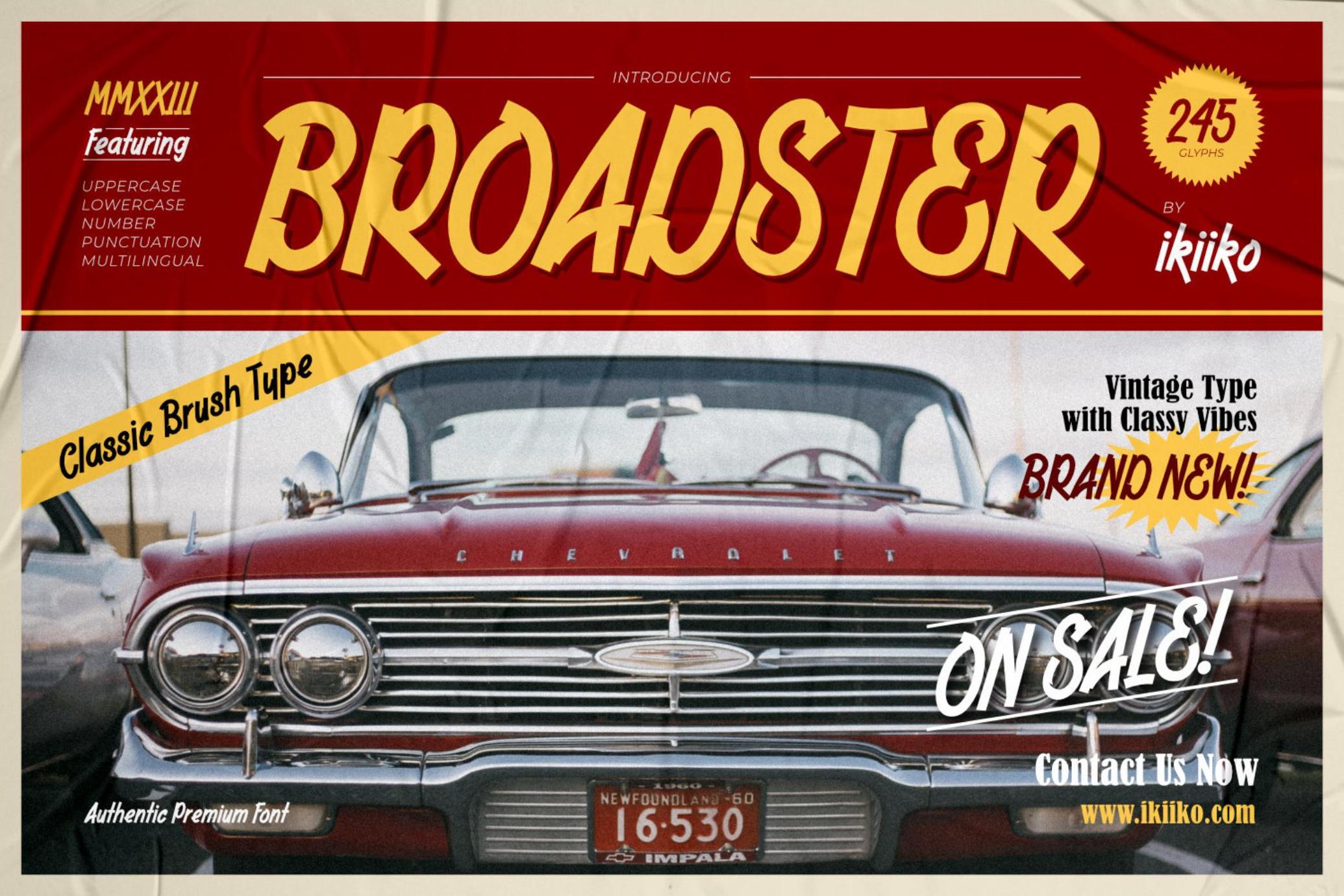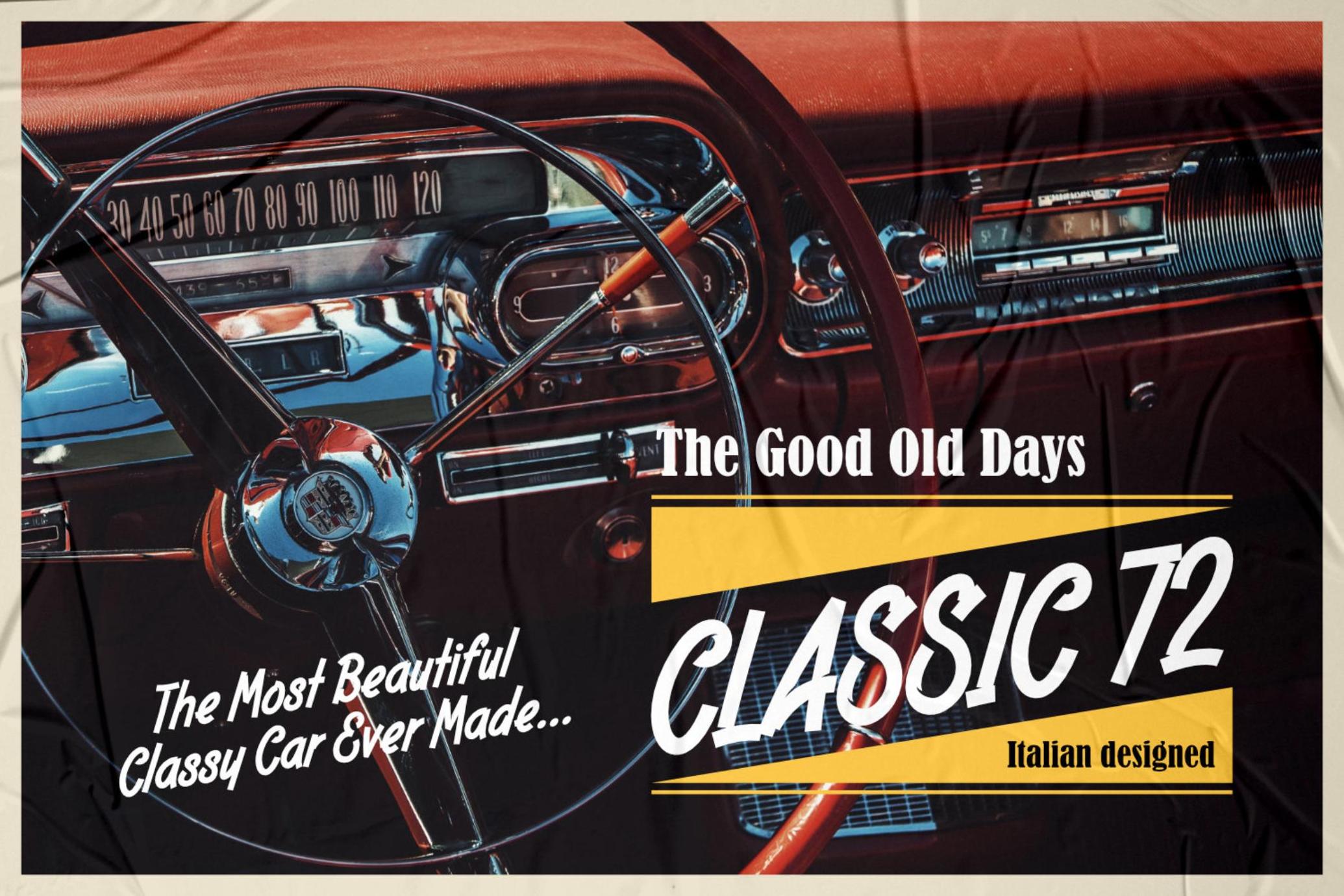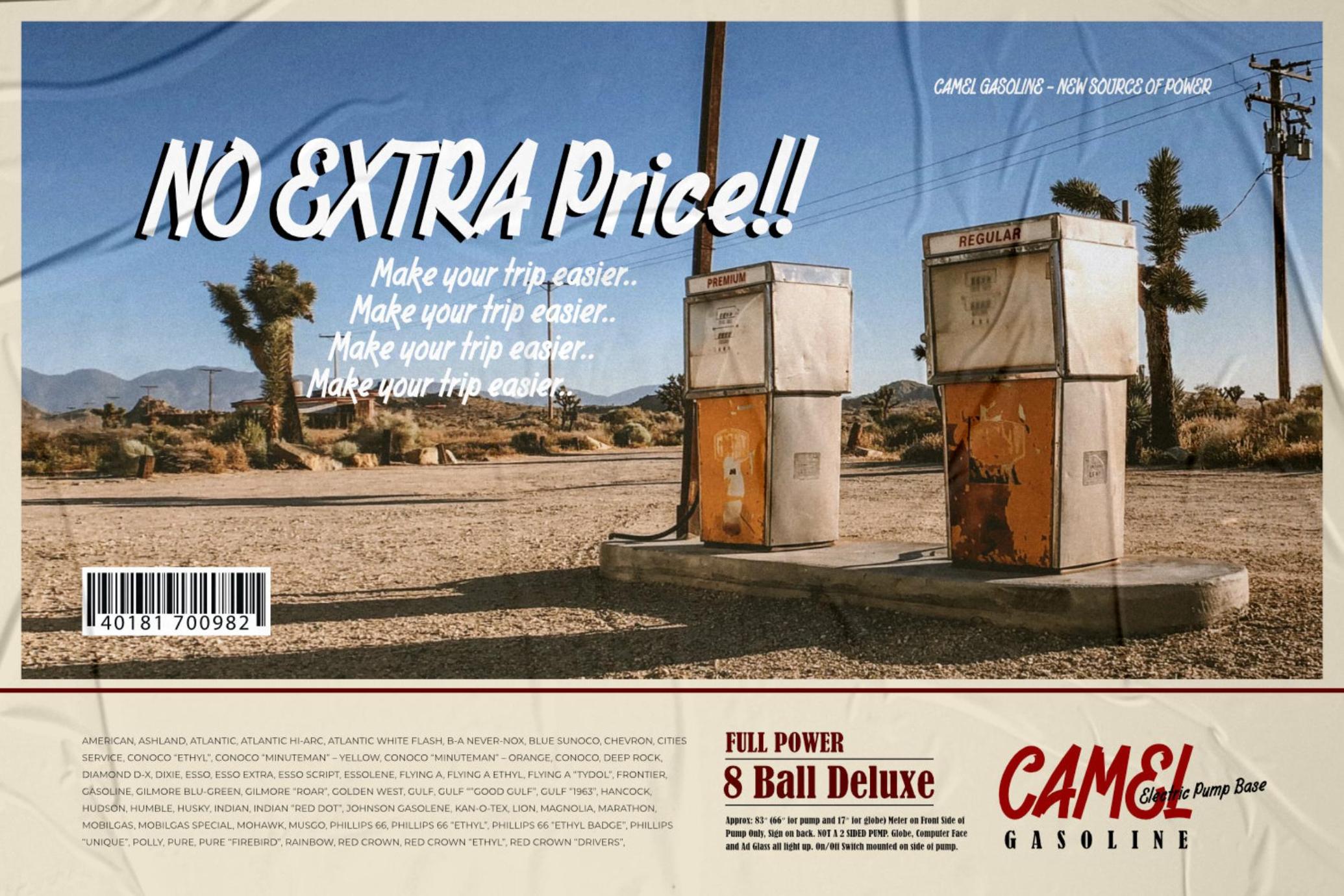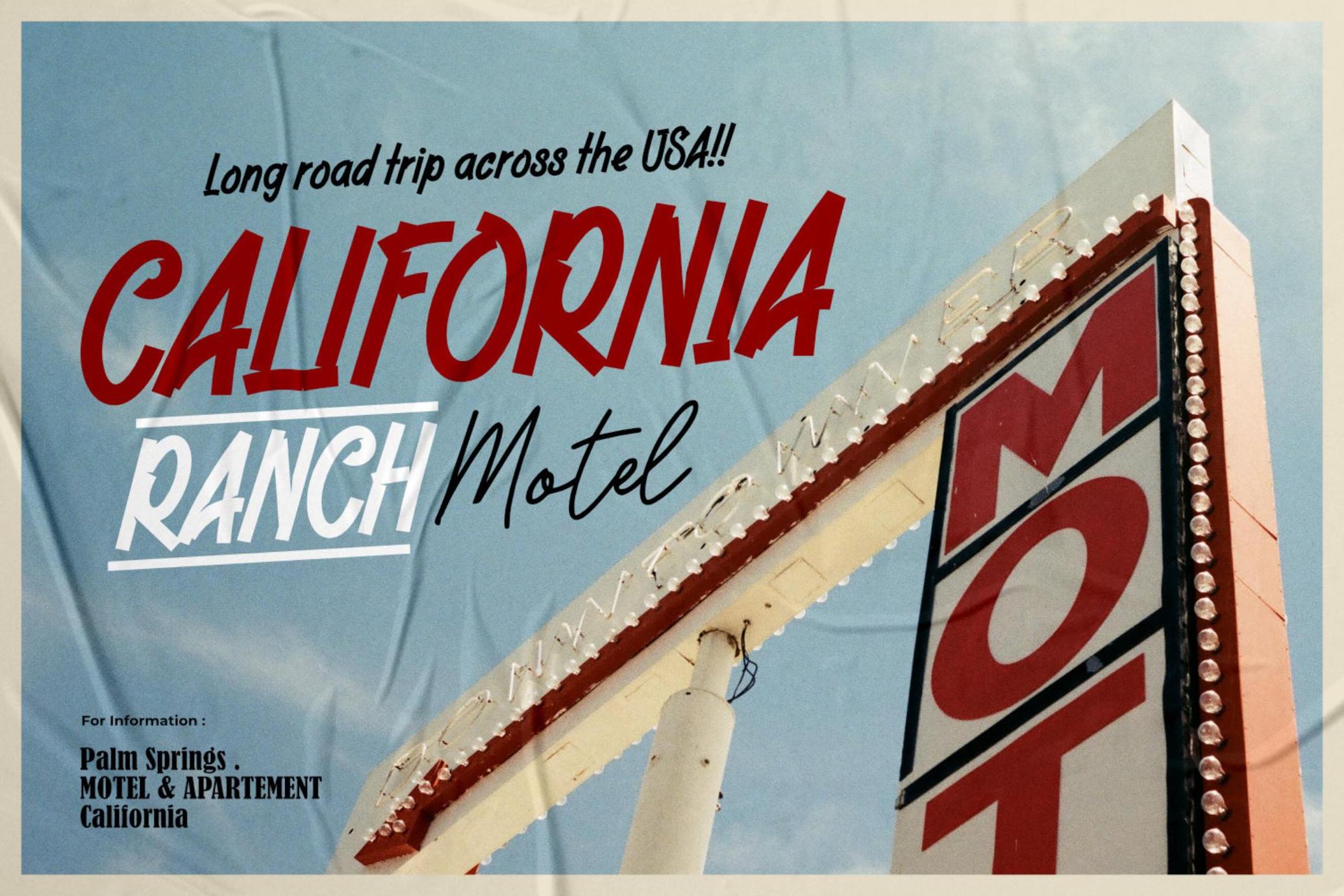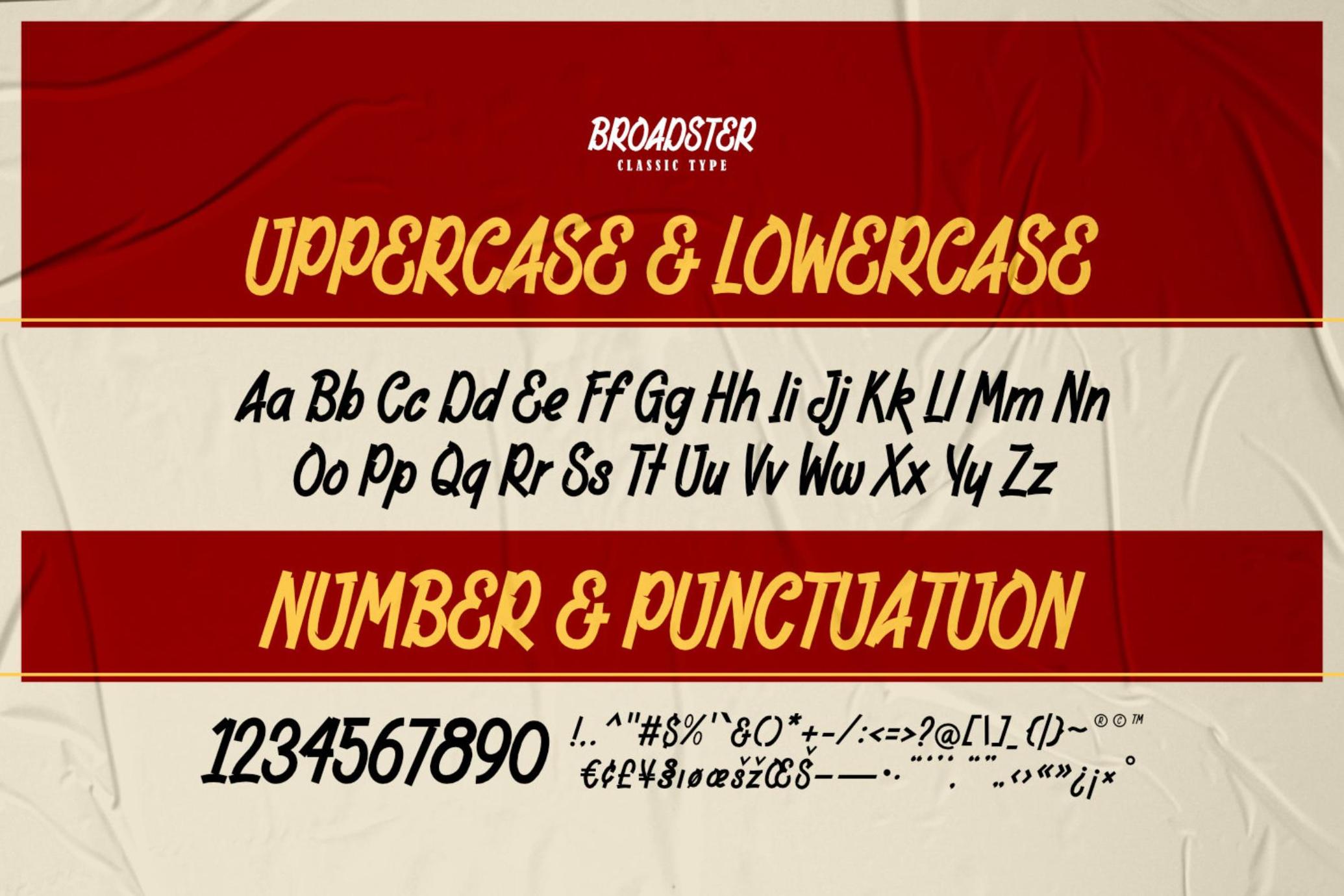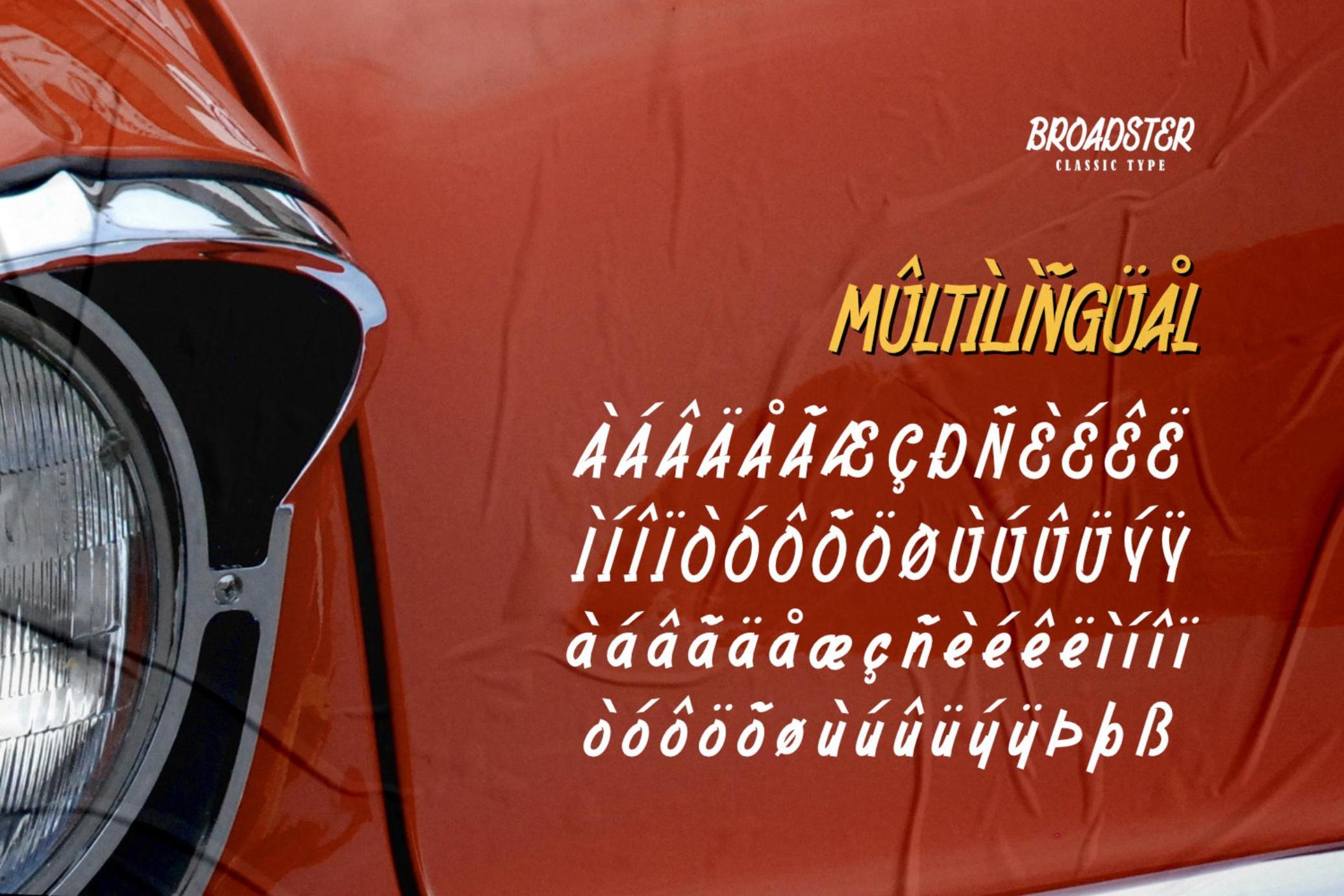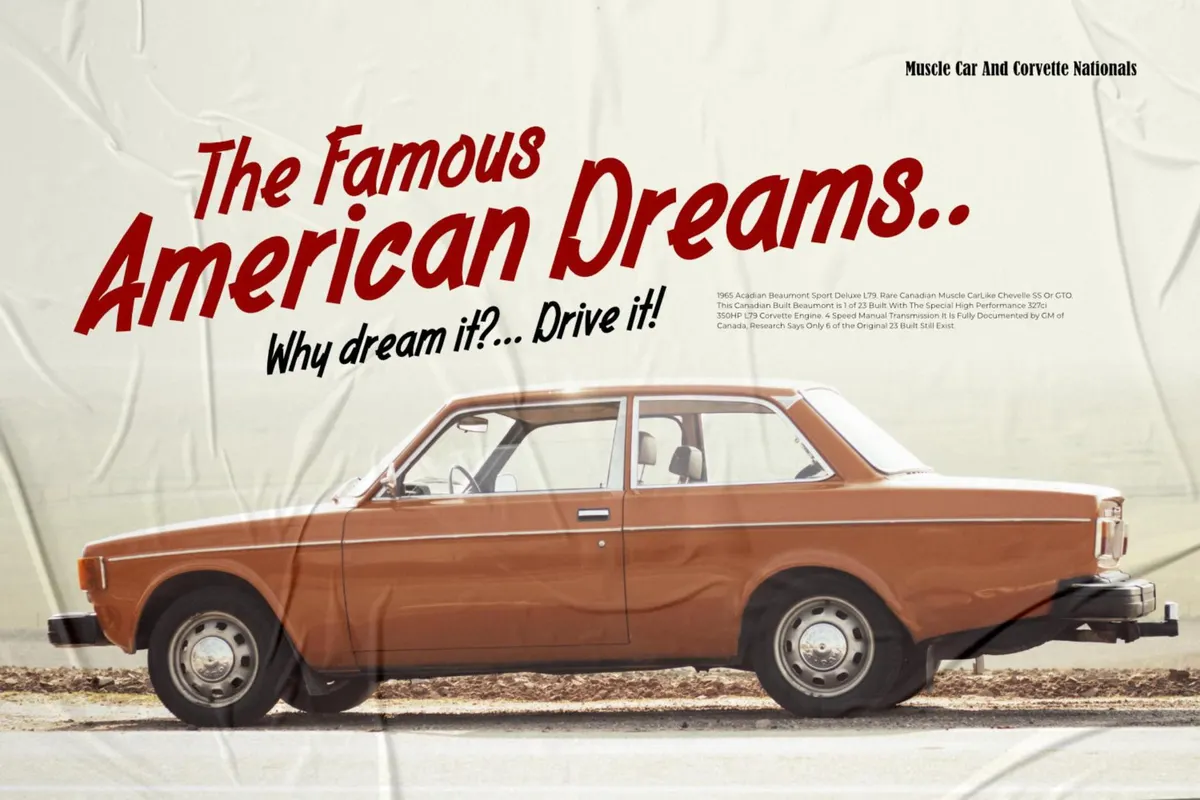
Broadster - Classic Brush Font
Broadster is a decorative sans serif typeface, inspired by typography from classic 60s American advertising & automotive visual styles of the time. This typeface is designed to give the appearance of a formal yet expressive style. The Broadster has bold, contrasting strokes. A style commonly used in print, magazine, and sign advertisements of the era. This typeface is perfect for an formal layout, poster, newspaper, magazine ads, and also good for vintage product, food & beverages, quotes, or simply as a stylish text overlay to any background image.